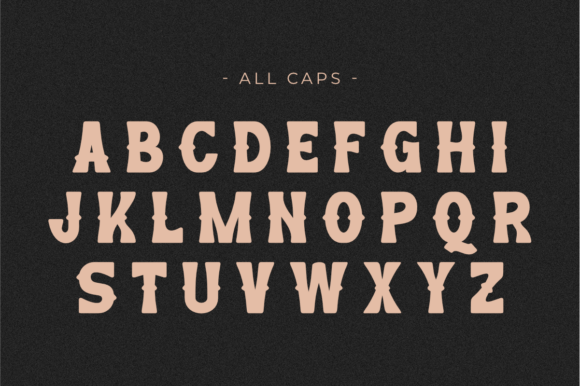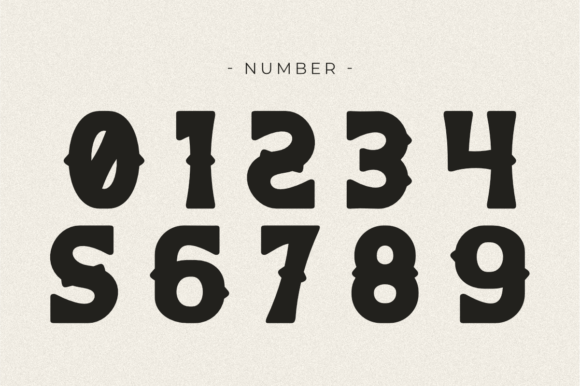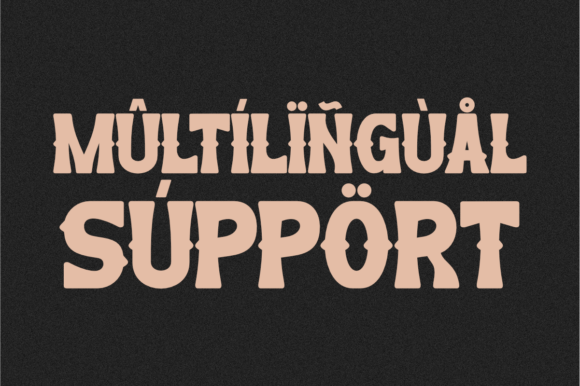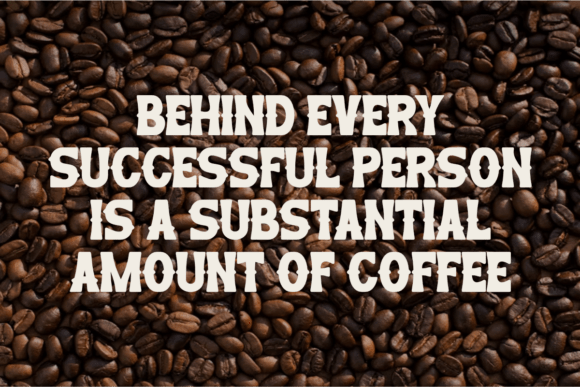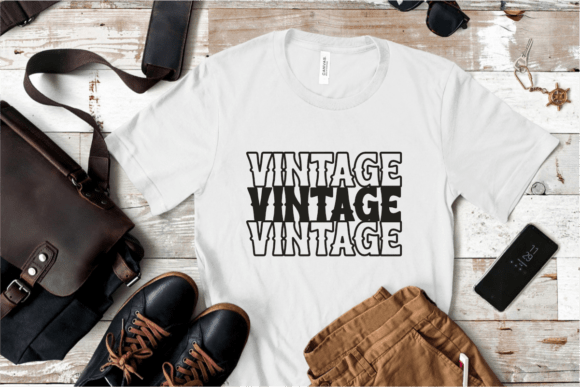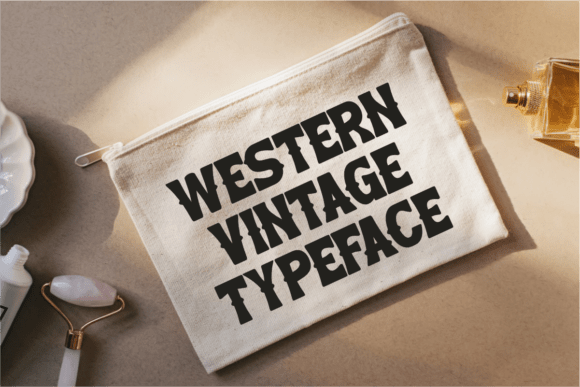
Introducing Freshly Font: The Ultimate Western Vintage Typeface for Creative Projects
Are you a designer, crafter, or DIY enthusiast looking for a unique and playful font to add a touch of retro charm to your creative projects? Look no further than Freshly Font, a bold and eye-catching western vintage typeface that’s perfect for T-shirt designs, print-on-demand (POD) projects, DIY crafts, and laser cuts.
What is Freshly Font?
Freshly Font is a carefully crafted typeface that embodies the spirit of the American West with its chunky, rounded design and fun, playful feel. This font is designed to bring a sense of nostalgia and ruggedness to your designs, making it ideal for western-themed and vintage-style projects. Whether you’re creating custom apparel, branding materials, or decorative items, Freshly Font is the perfect choice for adding a touch of personality and flair.
Key Features of Freshly Font
• Bold Display Style: Freshly Font features a bold and attention-grabbing display style that’s perfect for headlines, titles, and short phrases.
• Chunky and Rounded Design: The font’s chunky and rounded design gives it a playful and friendly feel that’s sure to appeal to crafty and DIY enthusiasts.
• Western Vintage Aesthetic: Freshly Font is inspired by the classic typography of the American West, making it perfect for western-themed designs and vintage-style projects.
• Highly Versatile: This font is suitable for a wide range of creative projects, including T-shirt designs, POD projects, DIY crafts, laser cuts, and more.
Freshly Font is an excellent choice for designers and crafters who want to add a unique and retro touch to their creative projects. Whether you’re creating custom apparel, home decor items, or branding materials, this font is sure to help your designs stand out. Here are just a few ways you can use Freshly Font:
• T-Shirt Designs: Create eye-catching T-shirt designs that are perfect for casual wear or as a promotional item for your business.
• Print-on-Demand (POD) Projects: Use Freshly Font to create custom POD projects, such as mugs, phone cases, and tote bags.
• DIY Crafts: Add a personal touch to your DIY crafts, such as handmade cards, gift tags, and decorations.
• Laser Cuts: Use Freshly Font to create custom laser-cut designs, such as wooden signs, acrylic decorations, and paper cutouts.
• Branding and Packaging: Use Freshly Font to create unique and memorable branding materials, such as business cards, labels, and packaging.
Why Choose Freshly Font?
With so many fonts available, why choose Freshly Font? Here are just a few reasons why this font stands out:
• Unique and Playful Design: Freshly Font features a one-of-a-kind design that’s sure to add a touch of personality to your creative projects.
• Highly Versatile: This font is suitable for a wide range of creative projects, making it a great addition to your font library.
• Easy to Read: Despite its bold and chunky design, Freshly Font is easy to read, making it perfect for headlines, titles, and short phrases.
• Retro and Vintage Aesthetic: Freshly Font is inspired by the classic typography of the American West, giving it a unique and retro aesthetic that’s sure to appeal to designers and crafters.
If you’re looking for a unique and playful font to add a touch of retro charm to your creative projects, look no further than Freshly Font. With its bold display style, chunky and rounded design, and western vintage aesthetic, this font is perfect for T-shirt designs, POD projects, DIY crafts, laser cuts, and more. Whether you’re a designer, crafter, or DIY enthusiast, Freshly Font is a great addition to your font library.